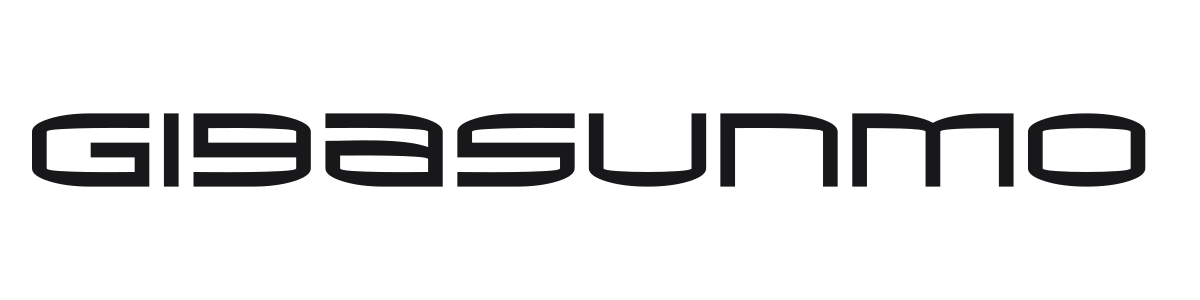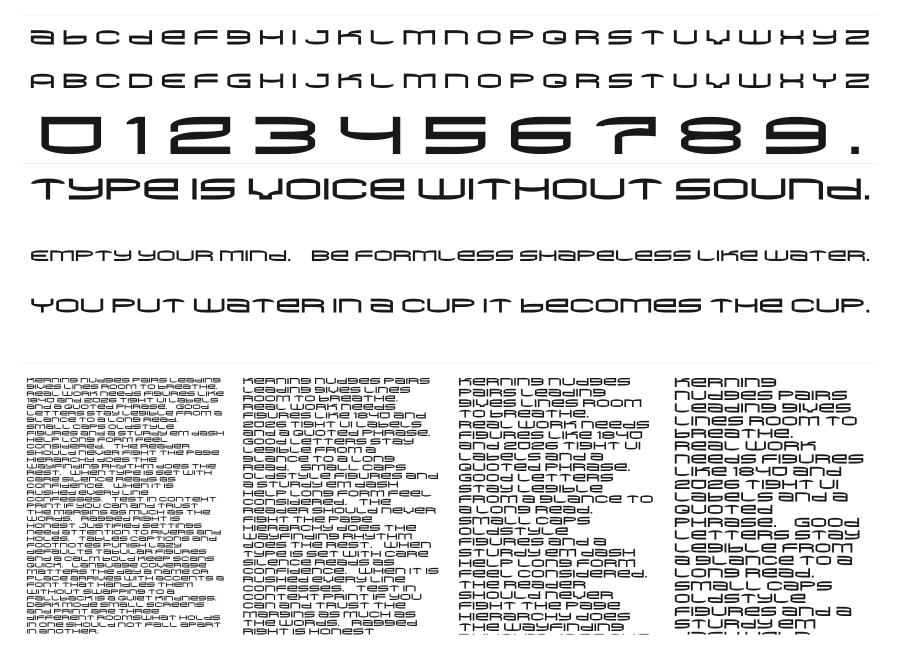
Gigasunmo
by Afiq Anggriawan
Gigasunmo is a wide geometric sans with rounded square construction and a clean, futuristic character. Its monoweight strokes and softened corners land somewhere between a techno display face and a friendly rounded grotesque. Works well in headlines, logos, and anywhere a modern digital-age aesthetic is the goal.